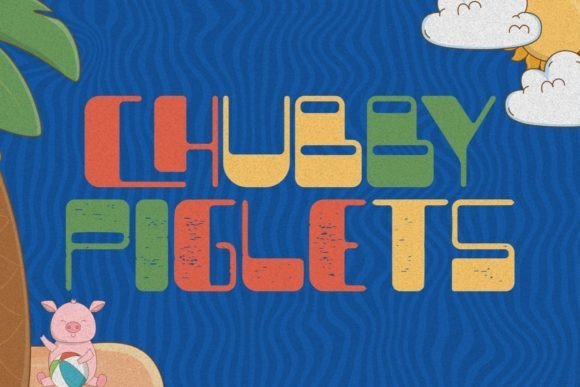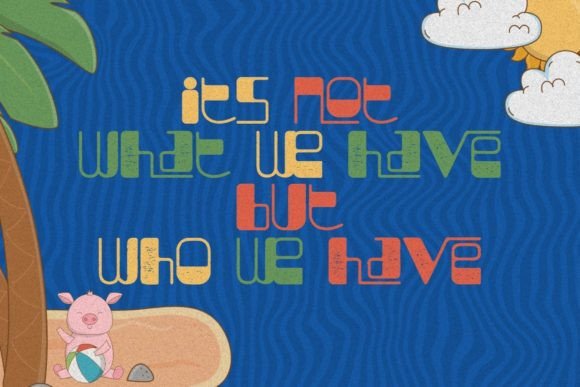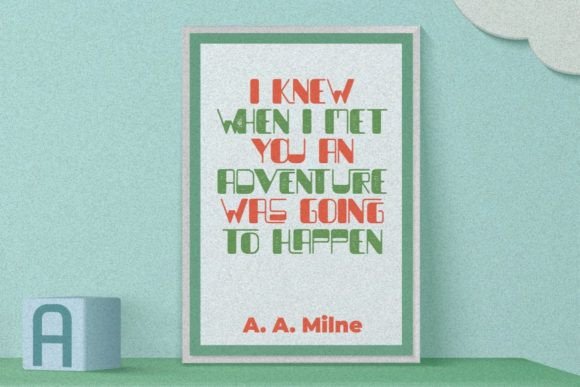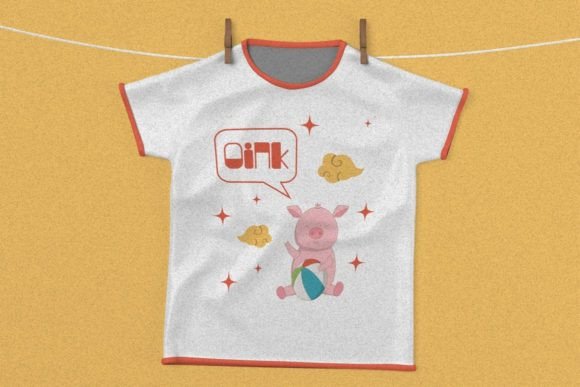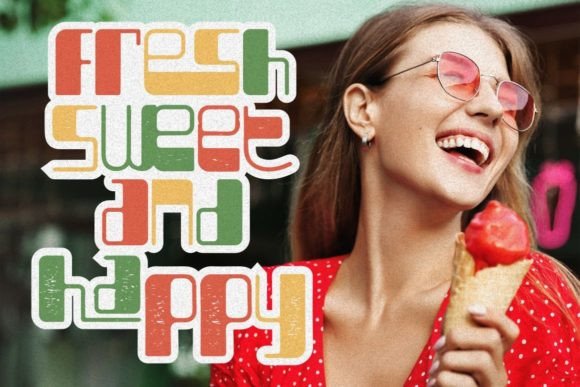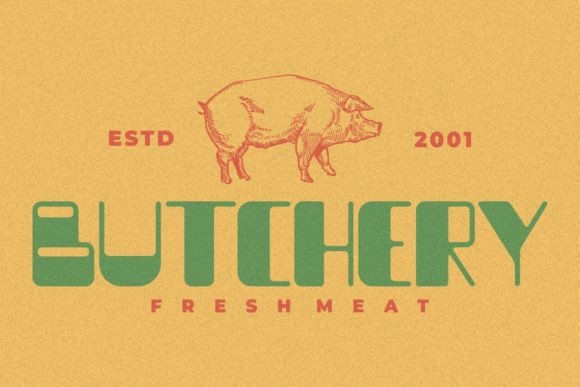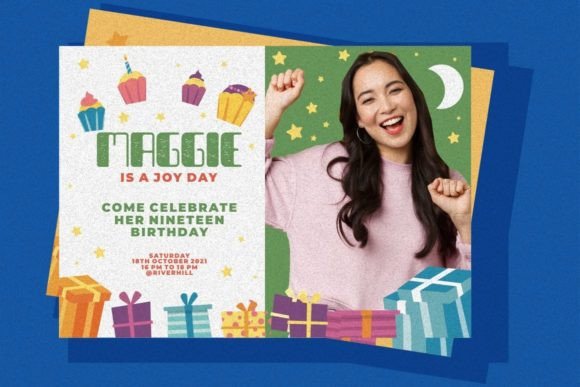
Unleash the Joy in Your Designs
Have you ever found yourself staring at a blank canvas, desperately searching for the perfect element to bring your creative vision to life? You know that moment when everything seems just a little too plain, a little too boring? That’s when you need a little something extra to make your designs pop.
That’s where the Chubby Piglets Font comes in – a fun and quirky display font that’s sure to add an incredibly joyful touch to your designs. Whether you’re a seasoned designer or just starting out, this beautiful display font is the perfect addition to take your creative ideas to the next level.
With the Chubby Piglets Font, you can add a playful, whimsical touch to your designs, making them stand out from the crowd. Its value lies in its versatility – use it for titles, headings, or even body text to add a splash of personality to your work.
Key Features of Chubby Piglets Font
- Unique Characteristics: Chubby Piglets Font features a playful, rounded design with chunky letterforms and adorable animal-inspired details, making it perfect for children’s books, nursery decor, and other whimsical projects.
- Font Style: This font is available in a single style, which is a bold, sans-serif design with a friendly and approachable feel.
Designer Review: Chubby Piglets Font
Overall, I found the Chubby Piglets Font to be a charming and playful addition to any design project. The font’s rounded edges and chunky lines give it a whimsical feel that’s perfect for children’s books, greeting cards, or any other project that requires a touch of warmth and personality.
The font’s versatility is one of its strongest assets ✨. I found it easy to use in a variety of contexts, from large headings to small body text. The font’s open-source nature also makes it easily accessible to designers of all skill levels.
While the Chubby Piglets Font has many strengths, there are a few limitations to consider ⚠️:
- Legibility can be a concern in smaller text sizes, particularly for readers with visual impairments.
- The font’s bold weight can sometimes be too overpowering, making it difficult to read in certain contexts.
- Lack of support for certain languages may limit the font’s usability in global design projects.
Despite these limitations, I believe the Chubby Piglets Font is a valuable addition to any designer’s toolkit. Its unique personality and versatility make it a great choice for a wide range of projects.
Practical Application Guide: Chubby Piglets Font
The Chubby Piglets Font is ideal for use in children’s party invitations, nursery decorations, and other playful and whimsical design projects. It is also suitable for use in educational materials, such as children’s books and worksheets, where a fun and engaging font can help to capture the reader’s attention.
To get the most out of the Chubby Piglets Font, use it in conjunction with other playful and whimsical design elements, such as illustrations and graphics. Experiment with different font sizes, colors, and styles to create a unique and engaging design. Consider using the font in combination with other fonts and design elements to create a cohesive and visually appealing design.